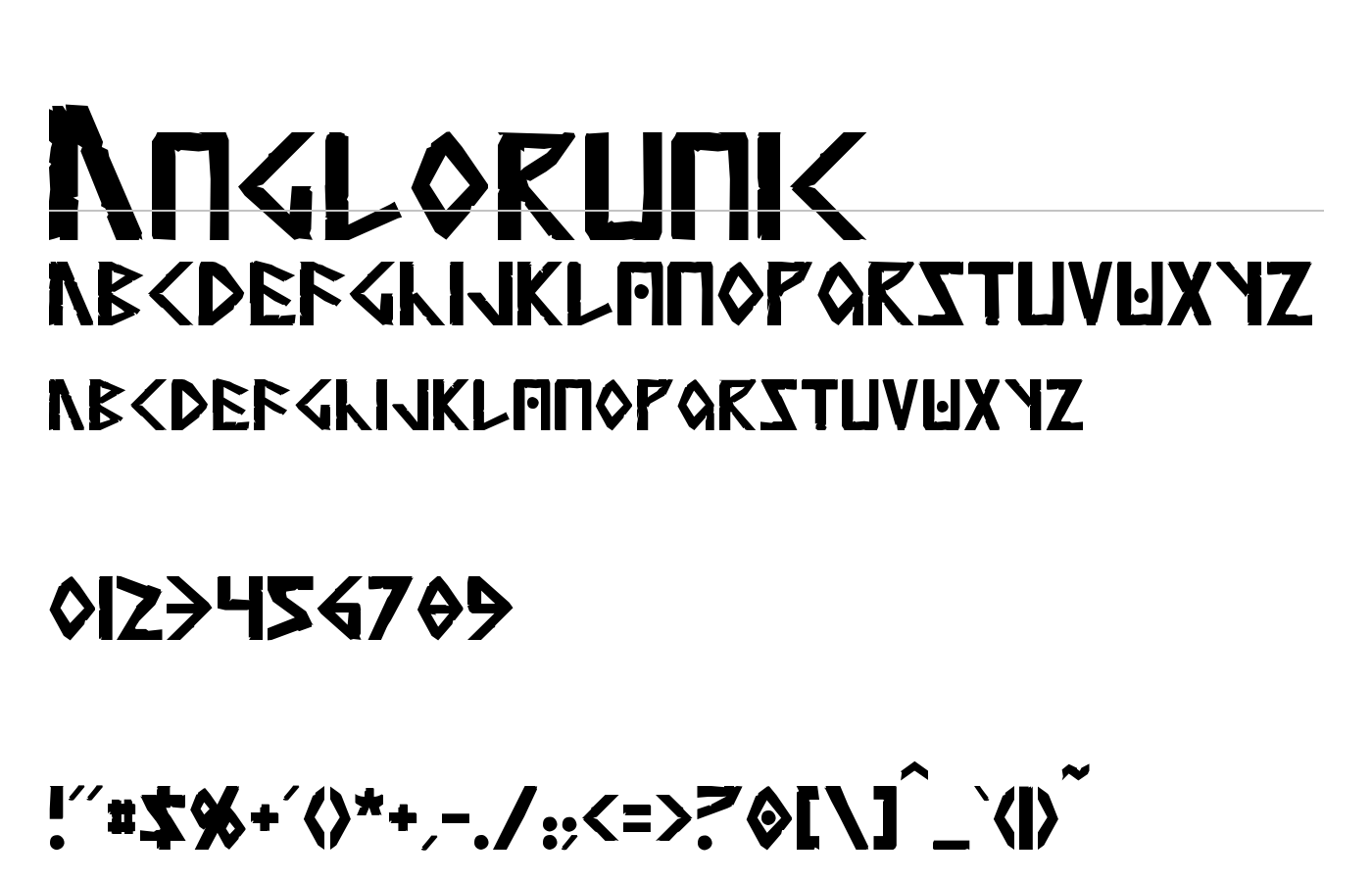
Anglorunic is a bold, angular display font inspired by ancient runic alphabets, featuring heavy geometric strokes with sharp, jagged edges that give it a rugged, historical feel. Its uppercase-only design and distinctive shapes make it perfect for projects seeking a strong, mysterious, or ancient vibe, especially in logos, posters, or themed packaging where impactful, eye-catching typography is key.
Anglorunic Font
About Anglorunic Font
| Font family | Anglorunic Font |
| Designer | Neale Davidson |